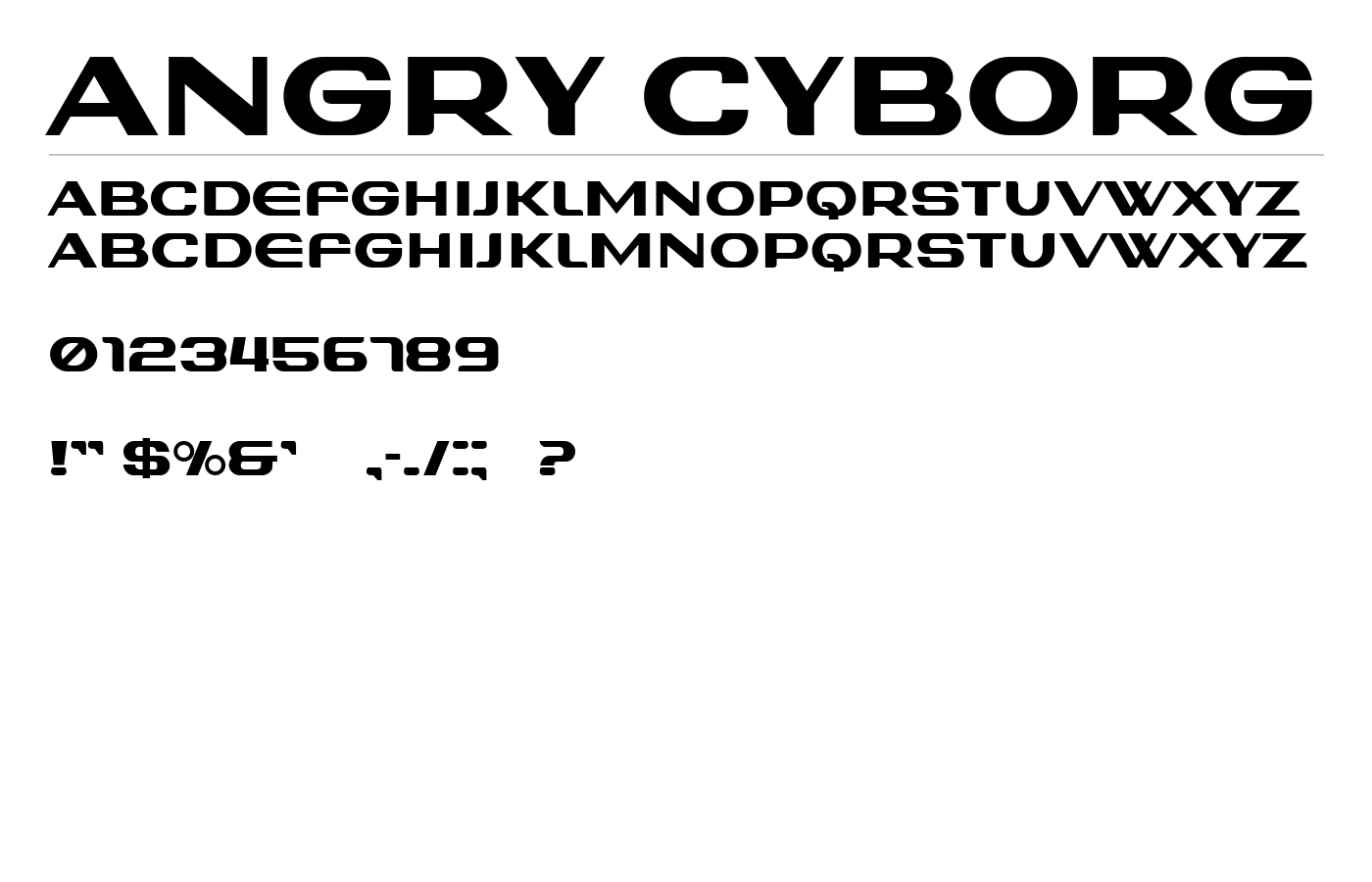
Angry Cyborg is a bold, futuristic sans serif font featuring a wide, geometric structure with strong, angular cuts that create a dynamic, tech-inspired look. Its high x-height and tight spacing lend a compact and sturdy appearance, making it ideal for eye-catching headlines, logos, and designs that require a modern, industrial vibe. This font works well for technology brands, gaming, and science fiction projects where a strong and aggressive personality is desired.
Angry Cyborg Font
About Angry Cyborg Font